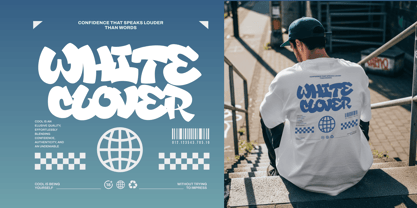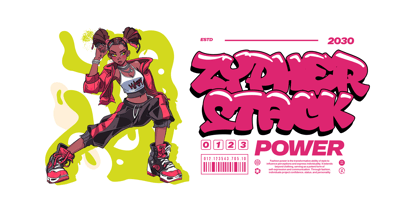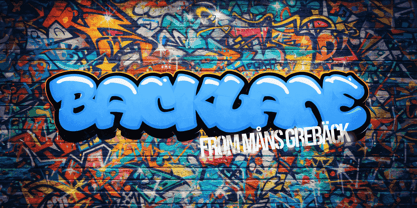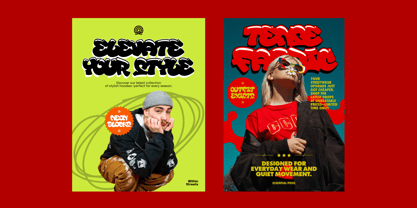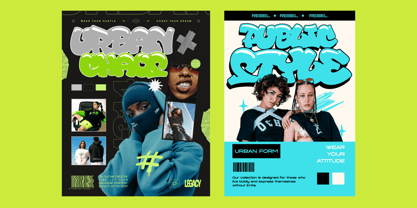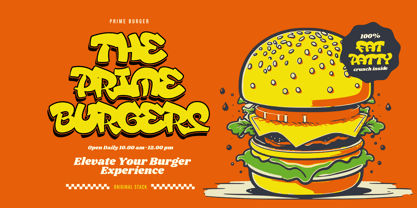
Backlane
Backlane is a bold graffiti-style display font inspired by street lettering and painted walls. Its rounded shapes, heavy outlines and playful proportions give it a loud yet friendly presence. The letters feel hand-drawn but controlled, with a smooth flow that keeps words readable even when they stretch wide. Backlane carries a sense of motion, like a quick tag caught mid-spray, balanced with enough structure to work cleanly in digital layouts. Backlane is built as a stackable font family, with multiple layers designed to sit perfectly on top of each other. By combining styles such as Regular, Outline, Shadow, Inner, Shine, and Black, you can build depth and texture with precision. The layers invite experimentation with color, from classic graffiti contrasts to soft tonal blends. Bright fills paired with dark outlines create strong impact, while subtle shadows and highlights add volume and a sense of light. Muted base colors with sharp accents can give the lettering a worn, urban feel, while vibrant combinations bring out its playful energy. The font is built with advanced functionality and guaranteed top-notch quality, containing stylistic and contextual alternates, ligatures and more automatic and manual features; all to give you full control and customizability. It has extensive lingual support, covering all Latin-based languages, from North Europa to South Africa, from America to South-East Asia. It contains all characters and symbols you'll ever need, including all punctuation and numbers. Designed by Måns Grebäck, Backlane explores expressive letterforms rooted in urban culture, focusing on clarity and rhythm rather than excess. It is drawn to feel natural and confident, with details that reveal themselves the longer you look.